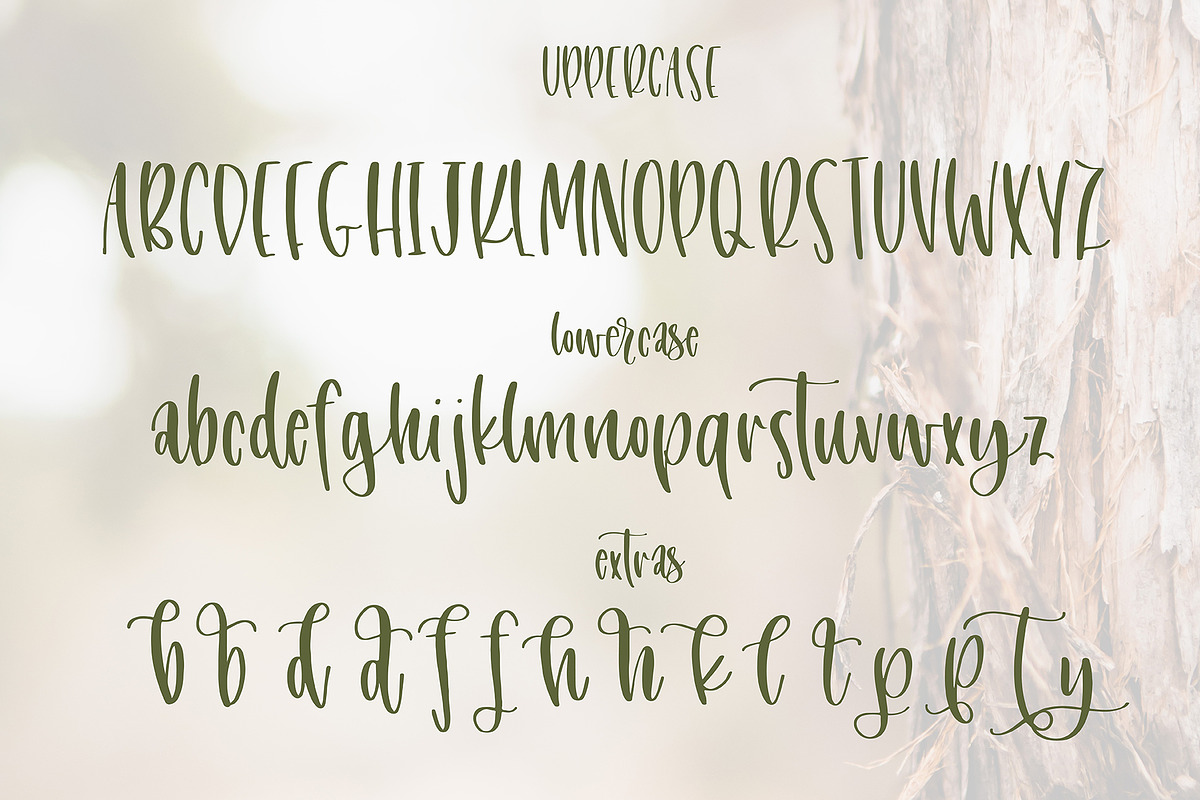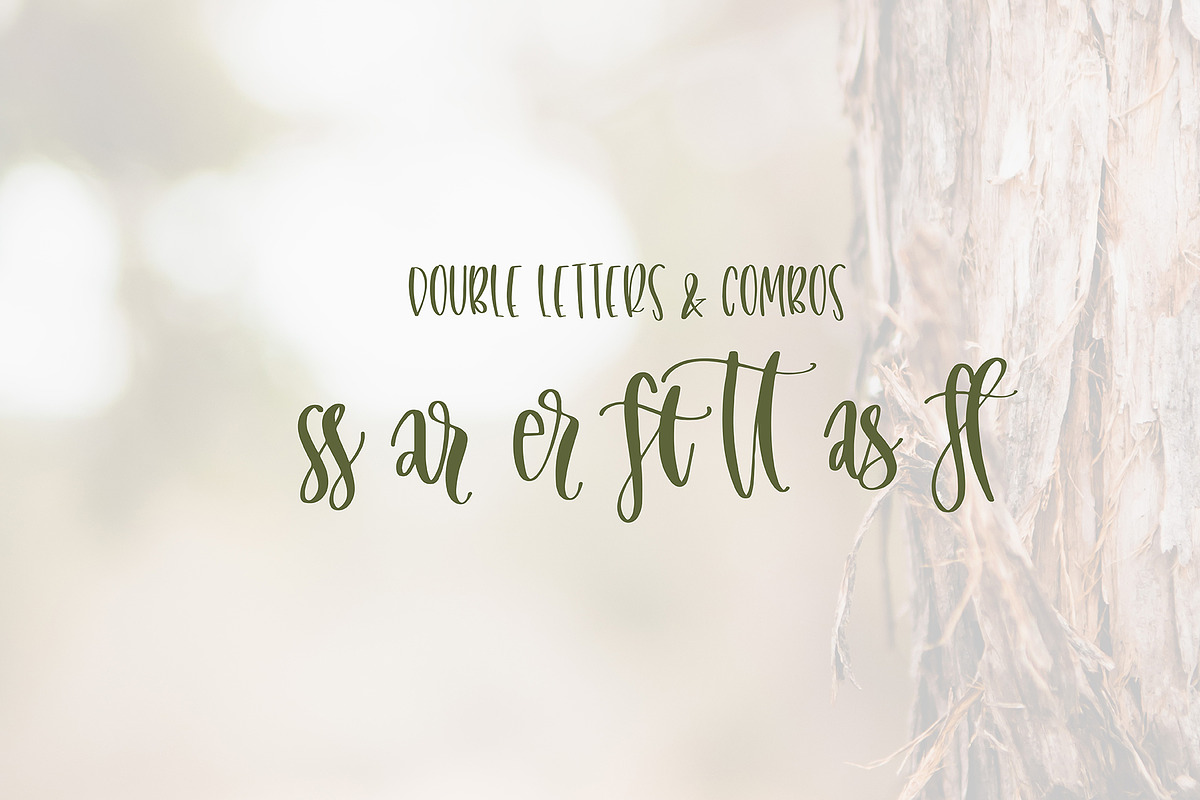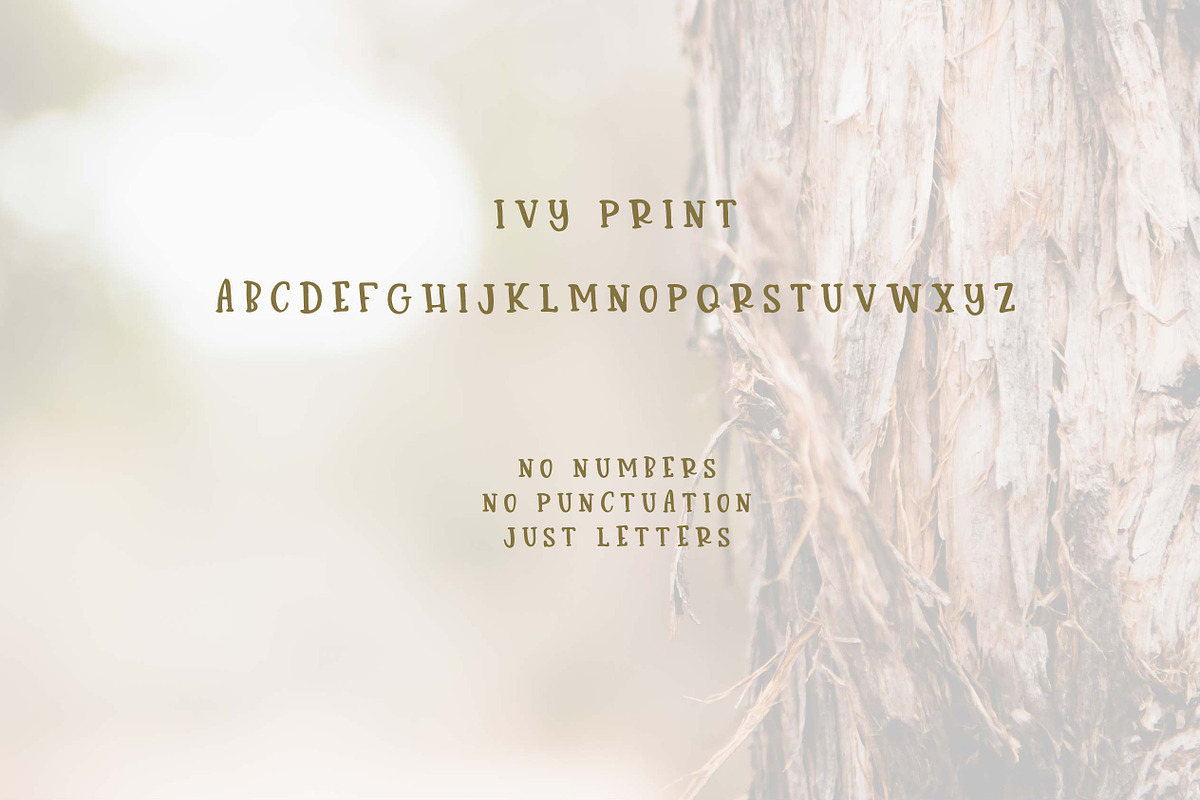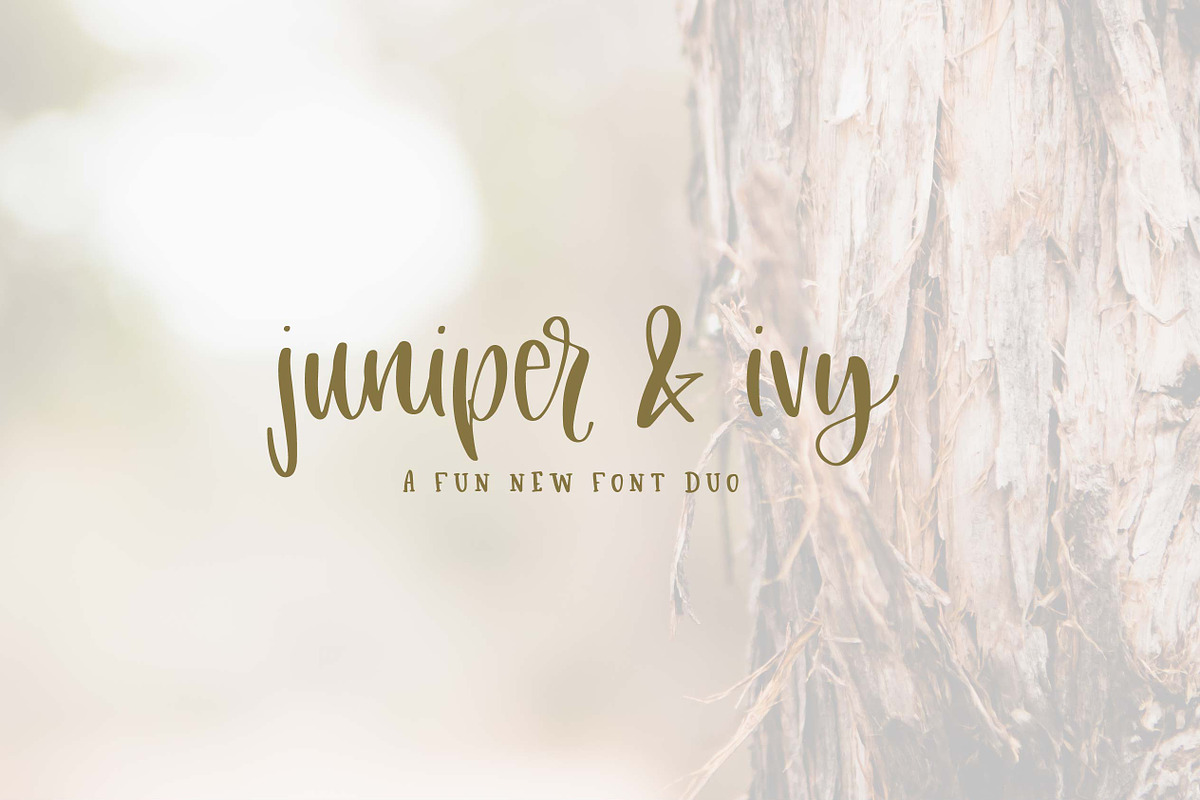
Juniper + Ivy Font Duo
Meet Juniper & Ivy! The newest font duo from OTSS gives you a sweet yet sassy script paired with a hand drawn serif font to further emphasize your designs!